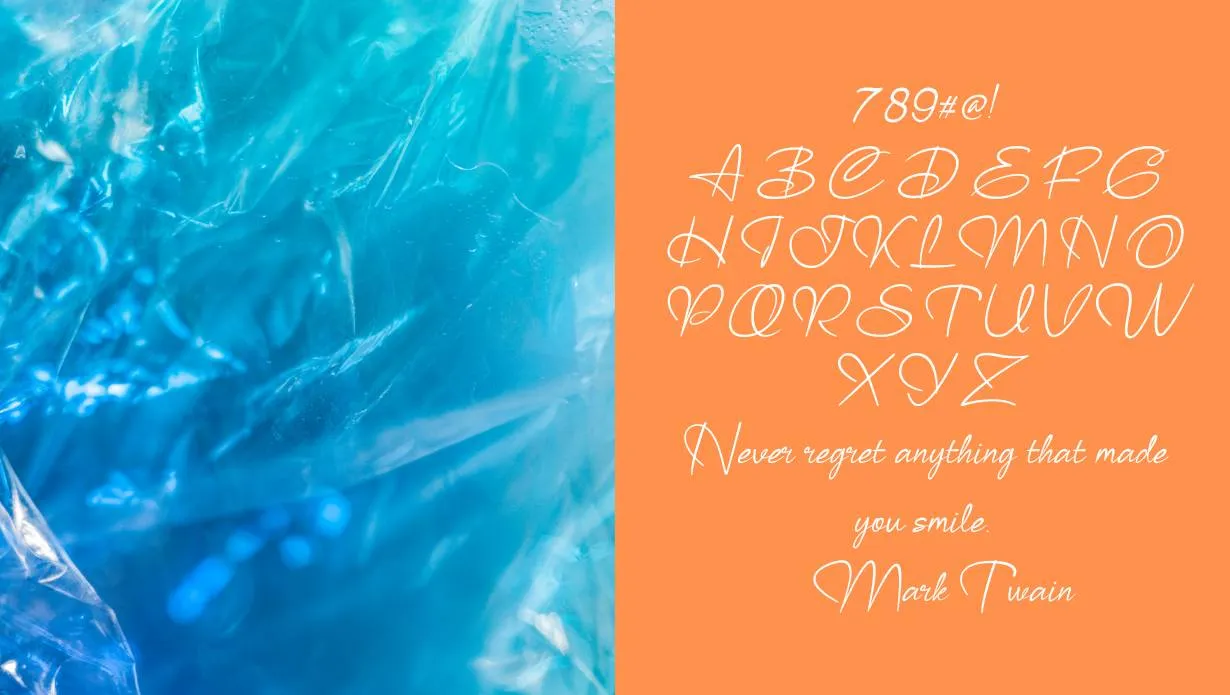
Outlander Font is a beautiful, romantic script font that is perfect for weddings and other special occasions.
It was created by Indhika Creative in the early 20th century and has been used by many couples over the years to commemorate their love for each other.
This font has a very elegant and flowing style that makes it perfect for wedding invitations and other special stationery.